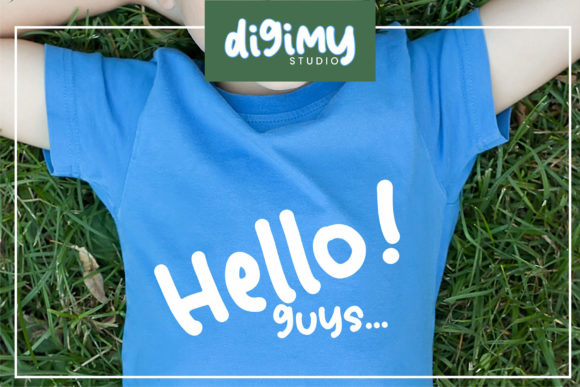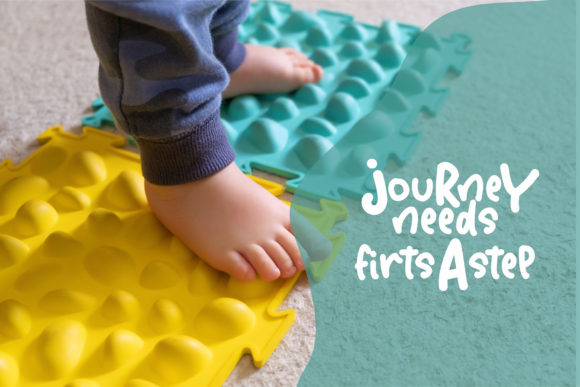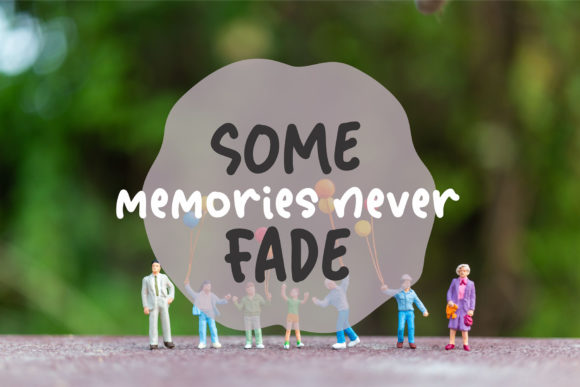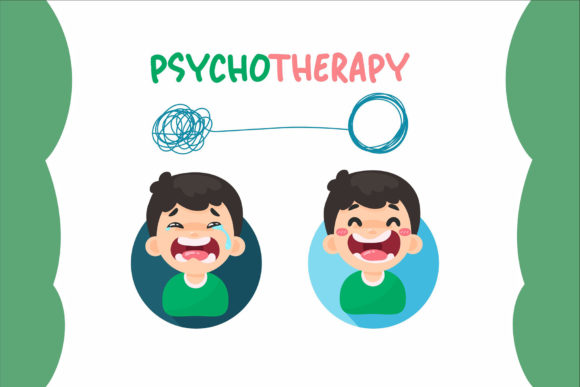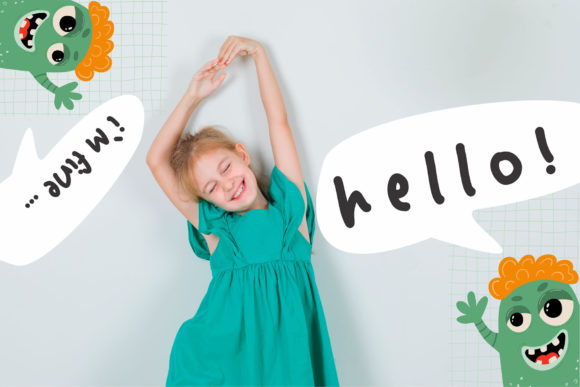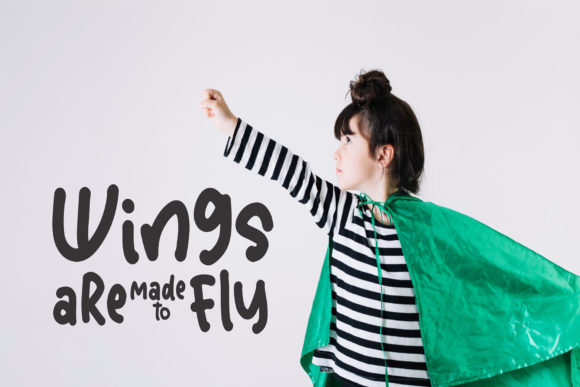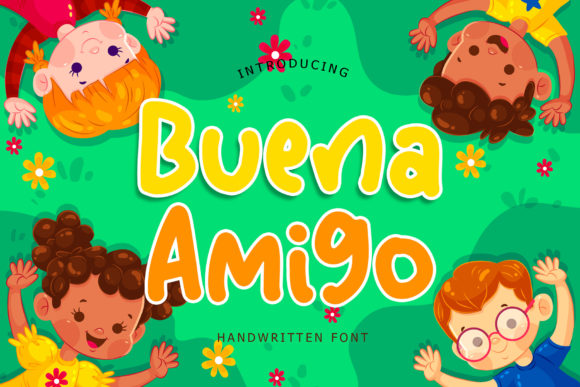
Introducing Buena Amigo Font: The Ultimate Display Font for Kid-Themed Designs
Are you a designer or crafter looking for a font that can add a touch of excitement and personality to your kid-themed designs? Look no further than Buena Amigo Font! This extraordinary display font is specifically designed to make your designs stand out and leave a lasting impression on your audience.
What Makes Buena Amigo Font So Special?
Buena Amigo Font is an exciting and playful font that is perfect for a wide range of design projects, including kid-themed designs, branding projects, logos, t-shirt designs, book cover designs, social media posts, advertisements, product packaging, product designs, labels, watermarks, invitations, stationery, and more. Its unique and quirky style is sure to capture the attention of your audience and add a touch of fun and personality to your designs.
Key Features of Buena Amigo Font
- Unique and Playful Style: Buena Amigo Font has a one-of-a-kind design that is sure to make your designs stand out from the crowd.
- Kid-Friendly: This font is perfect for kid-themed designs, including children’s books, toys, games, and more.
- Versatile: Buena Amigo Font can be used for a wide range of design projects, from branding and logos to social media posts and product packaging.
- Easily Readable: Despite its playful style, Buena Amigo Font is easily readable, making it perfect for designs that require a clear and concise message.
How to Use Buena Amigo Font in Your Designs
Buena Amigo Font is easy to use and can be incorporated into your designs in a variety of ways. Here are a few ideas to get you started:
- Kid-Themed Designs: Use Buena Amigo Font to create fun and playful designs for children’s books, toys, games, and more.
- Branding Projects: Add a touch of personality to your brand with Buena Amigo Font, perfect for logos, business cards, and more.
- T-Shirt Designs: Create eye-catching t-shirt designs with Buena Amigo Font that are sure to turn heads.
- Social Media Posts: Use Buena Amigo Font to add a touch of fun and personality to your social media posts and stories.
Benefits of Using Buena Amigo Font
By using Buena Amigo Font in your designs, you can enjoy a range of benefits, including:
- Increased Engagement: Buena Amigo Font is sure to capture the attention of your audience and increase engagement with your designs.
- Improved Brand Recognition: By adding a touch of personality to your brand with Buena Amigo Font, you can improve brand recognition and build a loyal following.
- Unique Designs: With Buena Amigo Font, you can create unique and eye-catching designs that stand out from the crowd.
Buena Amigo Font is an exciting and extraordinary display font that is perfect for kid-themed designs, branding projects, and more. Its unique and playful style is sure to capture the attention of your audience and add a touch of fun and personality to your designs. Whether you’re a designer or crafter, Buena Amigo Font is a must-have font that can help take your designs to the next level.